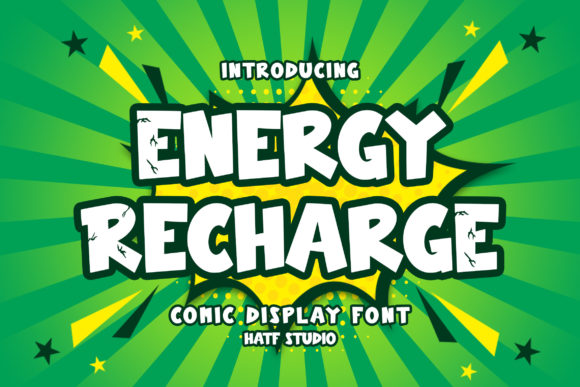
Prepare yourself for an electrifying encounter with Energy Recharge, a display font that radiates sheer brilliance. Its bold and quirky characters dance across the screen, capturing attention like a magnet. Immerse yourself in its captivating aura, where ordinary designs transform into extraordinary masterpieces.
Unleash your creativity with Energy Recharge, the font that speaks volumes. Its vibrant personality demands attention, making it the perfect choice for logos that leave an indelible mark. Its unique charm breathes life into wedding invitations, adding an unforgettable touch to your special day. With Energy Recharge, social media posts become captivating narratives, drawing followers into a world of visual wonder.
Step into the spotlight with Energy Recharge, the font that elevates your designs to new heights. Its dynamic presence commands attention on product packaging, making your products stand out from the crowd like radiant stars. Unleash your artistic flair as you create product designs that resonate with your audience. Labels adorned with Energy Recharge's bold strokes exude a sense of refined elegance, while photography adorned with its strokes gains an artistic edge.
Dive into a world of possibilities with Energy Recharge, the font that transforms the ordinary into the extraordinary. From watermarks that leave a lasting impression to invitations that ignite curiosity, this font adds a spark of creativity to every project. Stationery takes on a life of its own, infused with Energy Recharge's infectious energy. Embrace the spirit of boldness, and let your designs shine brighter than ever before.